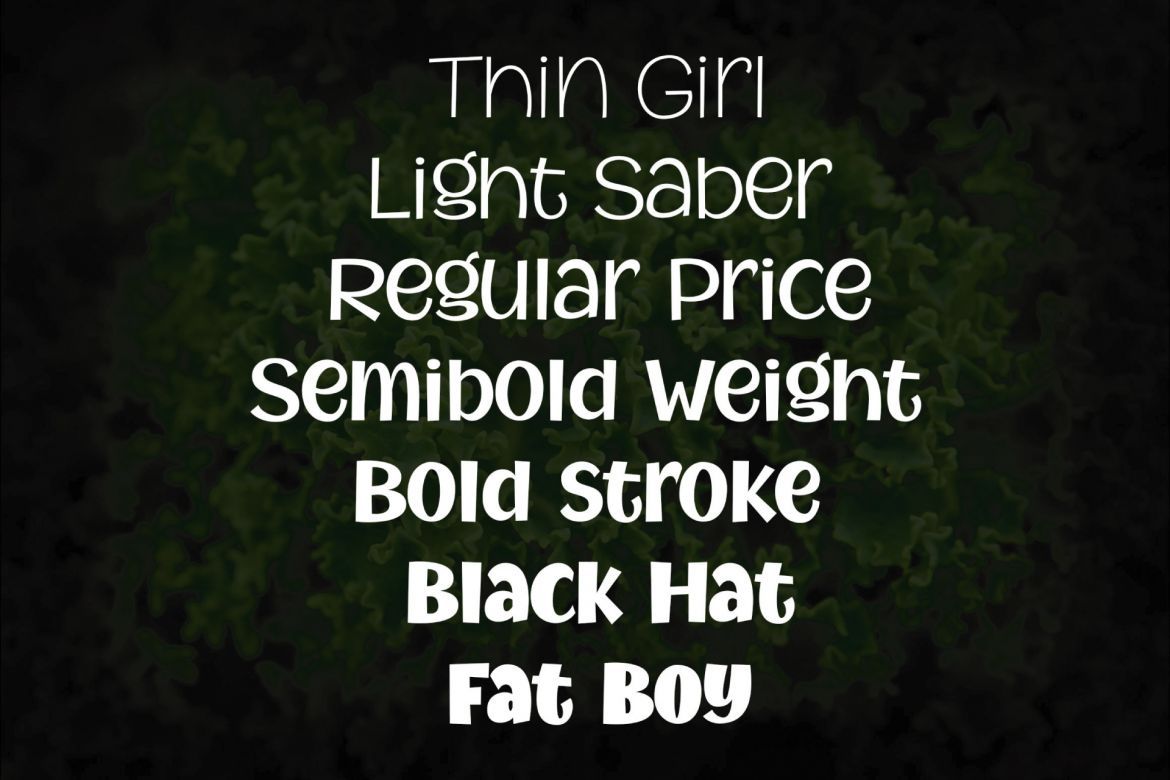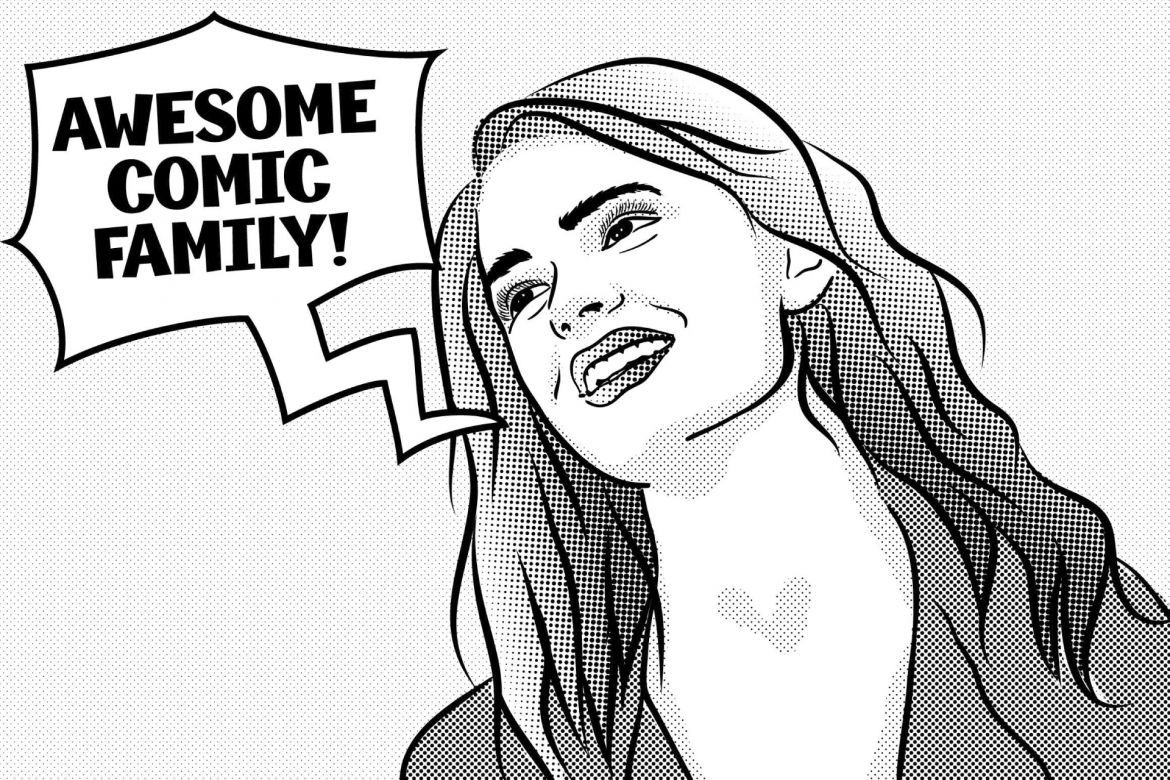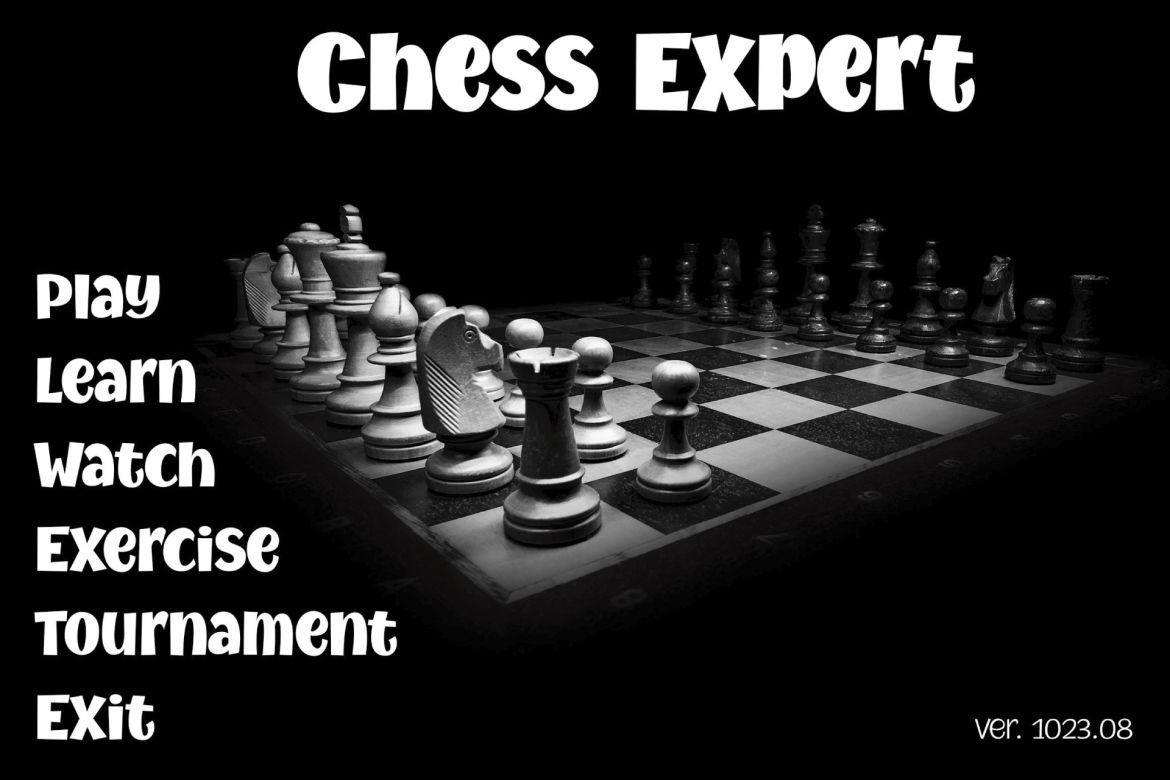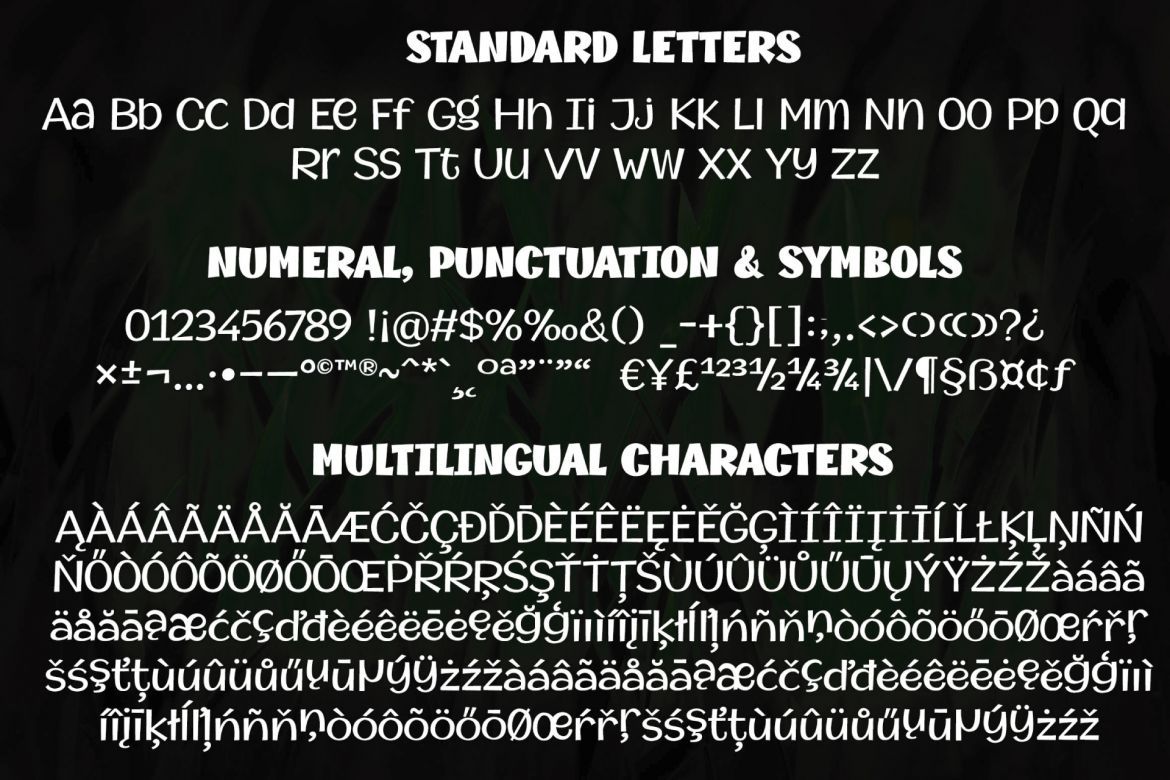
Mythical Garden Font Family
Introducing a new cool comic font family!, named as Mythical Garden. This font was carefully crafted with clean node, so it good for cutting craft machine. Available in seven weight variation, so you can enjoy design a page just with a font family.
• 7 weight font family
• complete latin and eastern europe characters
• fun whimsical cartoon typeface
• good kerning even for uppercase-lowercase-uppercase